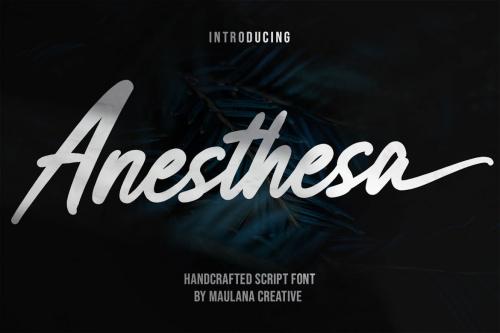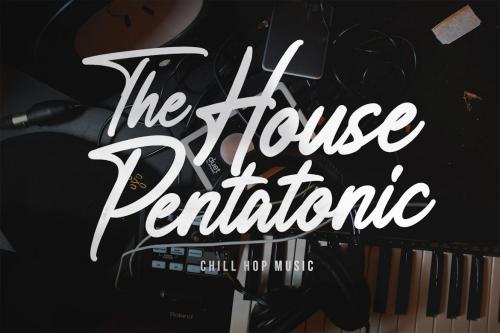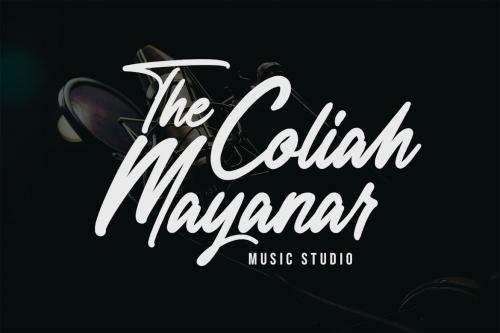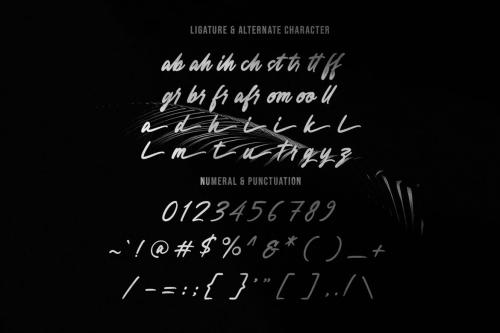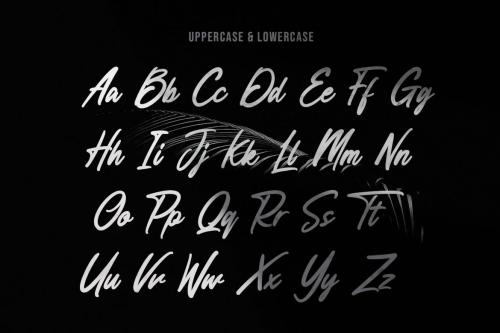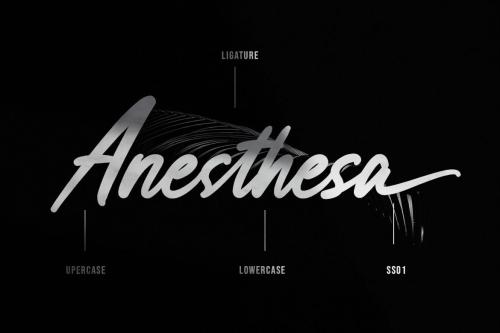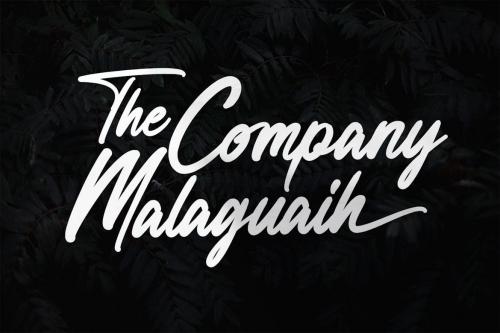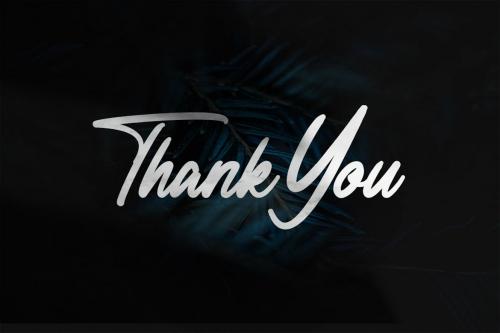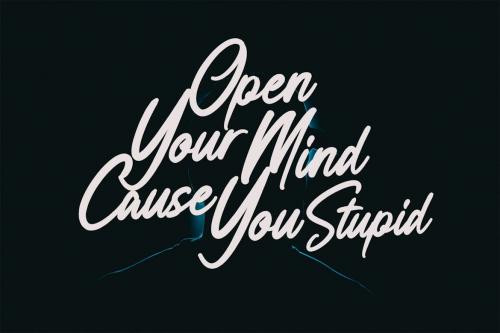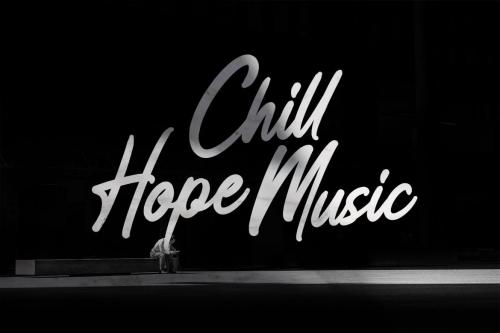
麻醉师手工草书字体
Anesthesa Handcrafted Script Font
Anesthesa is a Casual script font. With bold mono-line stroke, slant and fun character with a bit of ligatures. To give you an extra creative work. Anesthesa font support multilingual more than 100+ language. This font is good for logo design, Social media, Movie Titles, Books Titles, a short text even a long text letter and good for your secondary text font with sans or serif. Make a stunning work with Anesthesa font.